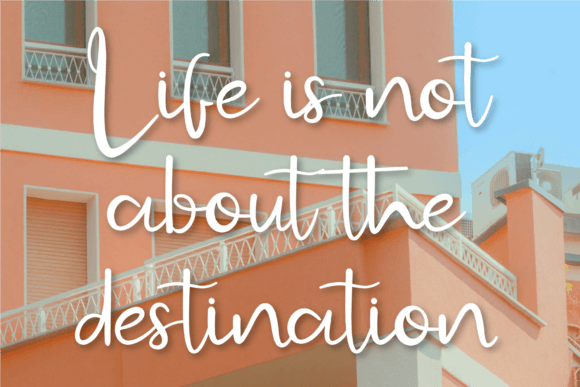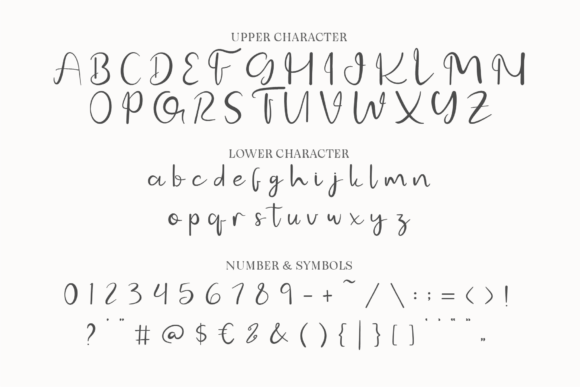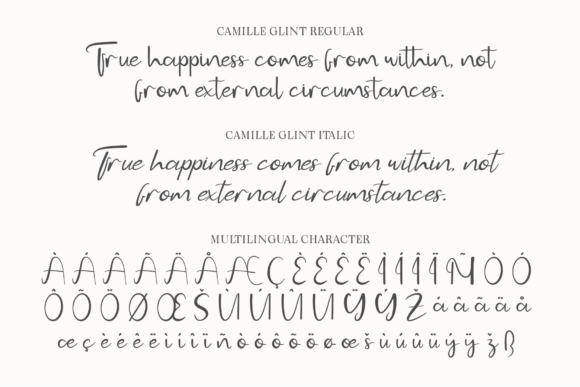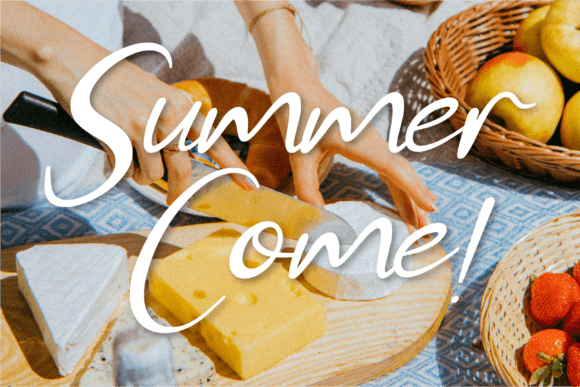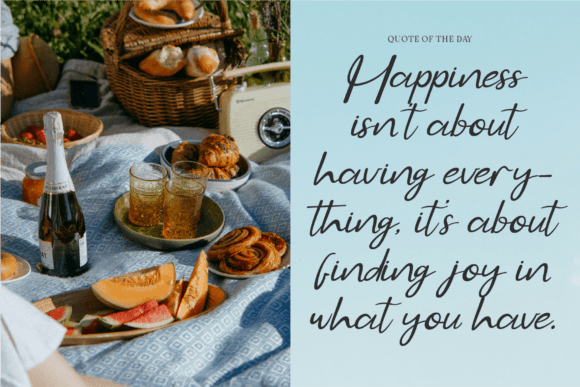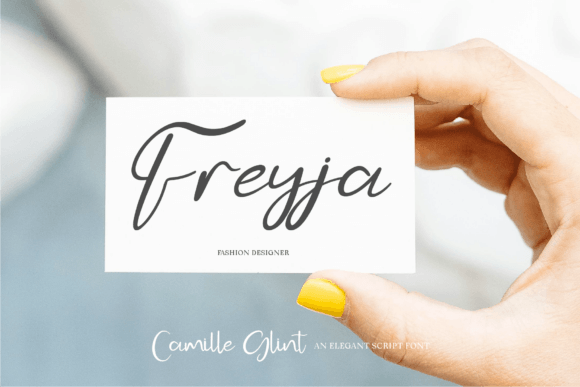
Introducing Camille Glint: Elevate Your Designs with Modern Elegance and Whimsy
In the realm of typography, few fonts manage to strike a balance between sophistication, refinement, and a touch of playfulness. Camille Glint is one such dynamic script font that has captured the essence of modern elegance, making it an indispensable asset for designers and crafters alike. With its sleek curves, fluid lines, and distinctive strokes, Camille Glint is poised to transform your creations, whether they’re aimed at fashion-centric branding, editorial designs, logos, stationery, or social media graphics.
The Essence of Camille Glint
Camille Glint is more than just a font; it’s an expression of style and contemporary flair. Its design is characterized by a harmonious blend of beauty and professionalism, making it a premier choice for projects that demand a refined aesthetic. The fluidity of its lines and the grace with which it flows across the page or screen are testament to its versatility and adaptability across various mediums.
Perfect for Fashion and Editorial Projects
The fashion industry, with its ever-evolving trends and emphasis on visual appeal, finds a perfect match in Camille Glint. This font is tailor-made for fashion brands looking to etch a mark of elegance and modernity into their identity. Similarly, editorial designers will find Camille Glint to be an invaluable resource for creating chic and captivating layouts that demand attention and convey sophistication.
Key Features of Camille Glint:
- Dynamic Script Style: Offers a modern take on traditional script fonts, with a dynamic and vibrant feel.
- Elegant Curves and Lines: Provides a sleek and refined appearance, perfect for high-end branding and designs.
- Whimsical Touch: Adds a dash of playfulness, making it versatile for a range of creative projects.
- High Versatility: Suitable for logos, branding, editorial designs, stationery, and social media graphics.
Camille Glint in Design Applications
The applications of Camille Glint are vast and varied. Here are a few ways designers and crafters can leverage this beautiful font:
Branding and Logos
For businesses, especially in the fashion and beauty sectors, establishing a strong brand identity is crucial. Camille Glint, with its sophisticated and modern appeal, can be the cornerstone of your brand’s typography, setting you apart from competitors.
Editorial Designs
In magazines, blogs, and digital publications, typography plays a significant role in reader engagement. Camille Glint can elevate the visual appeal of your editorial content, making it more captivating and memorable.
Stationery and Invitations
For personal or business stationery, including invitations, greeting cards, and thank you notes, Camille Glint adds a touch of elegance and class. It’s perfect for those special occasions where making a lasting impression matters.
Social Media Graphics
In the digital age, social media presence is vital. Camille Glint can help create eye-catching social media graphics that stand out in crowded feeds, perfect for promotions, announcements, or simply to enhance your brand’s visual storytelling.
Camille Glint is a versatile and elegant script font that brings a unique blend of modern sophistication and whimsy to the table. Whether you’re a designer looking to elevate your projects or a crafter seeking the perfect typography for your creations, Camille Glint is an exceptional choice. Its wide range of applications, from fashion branding and editorial designs to stationery and social media graphics, makes it a valuable addition to any creative arsenal. Inject sophistication, refinement, and a contemporary flair into your designs with Camille Glint and witness the transformation of your visual creations.